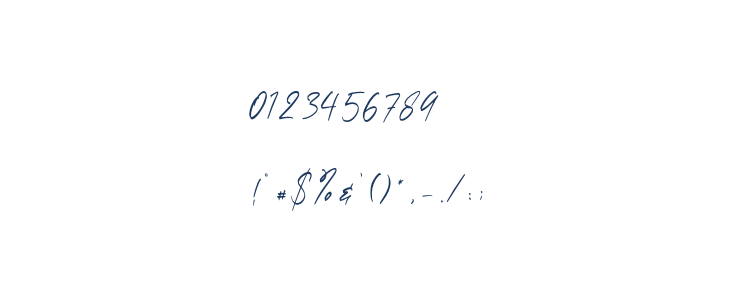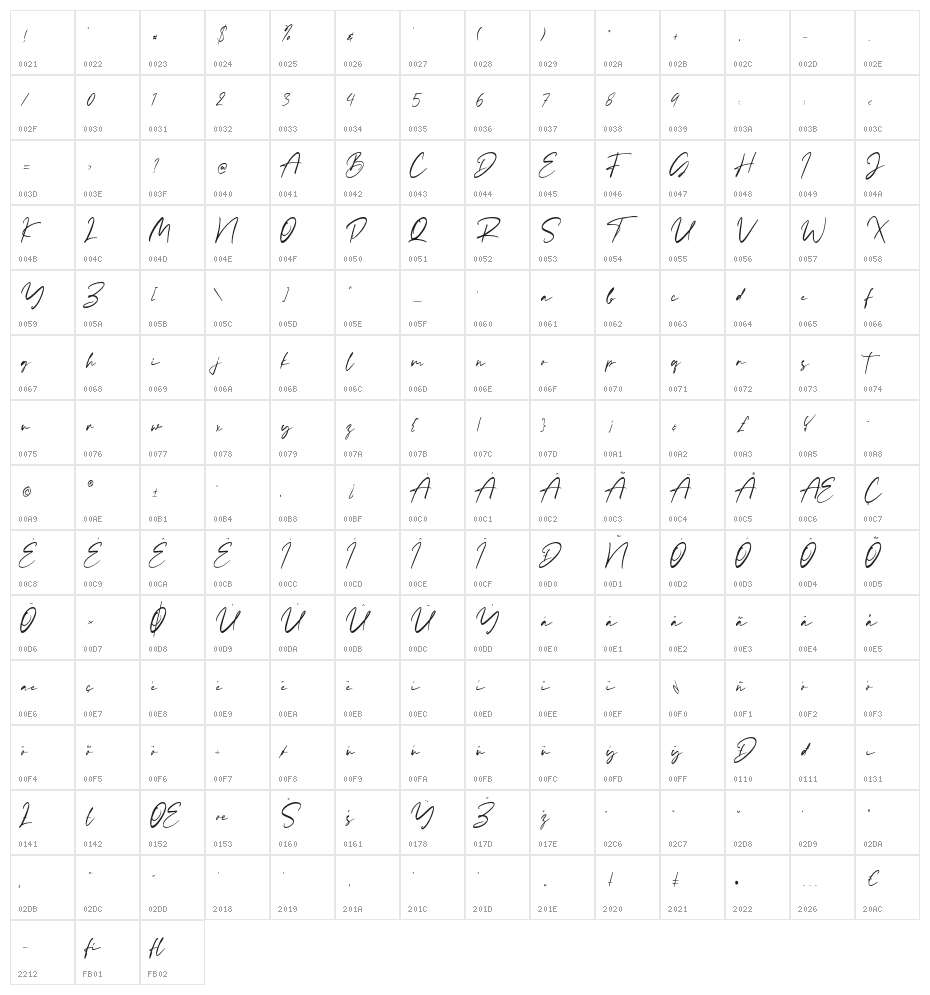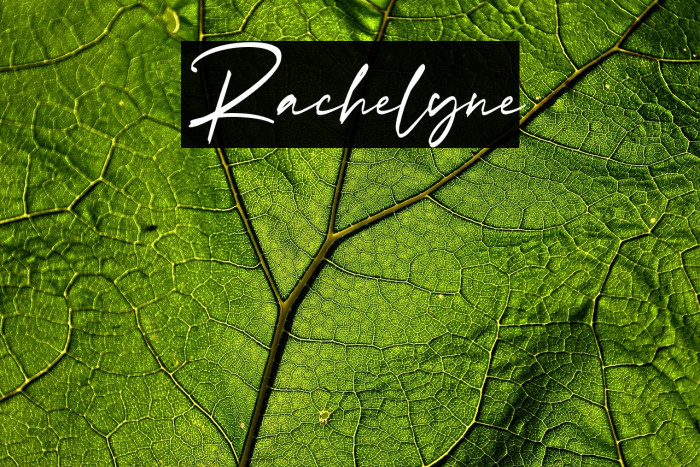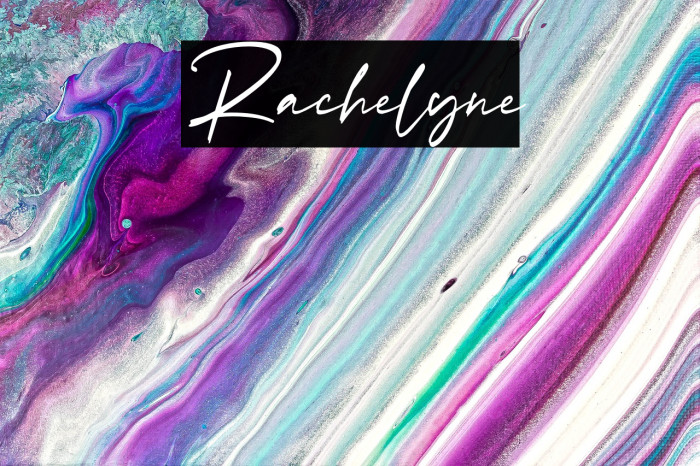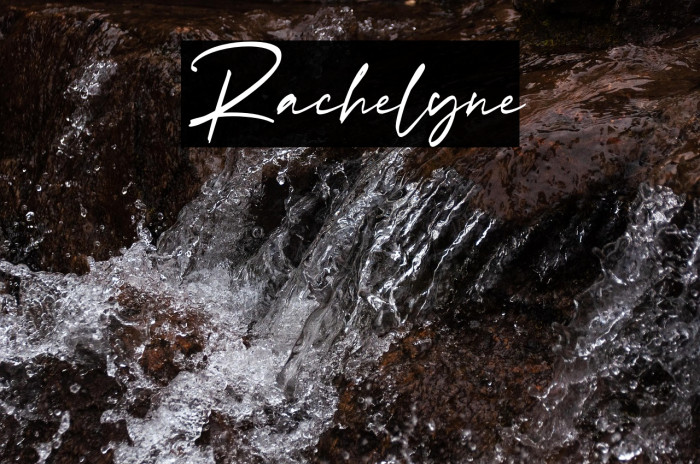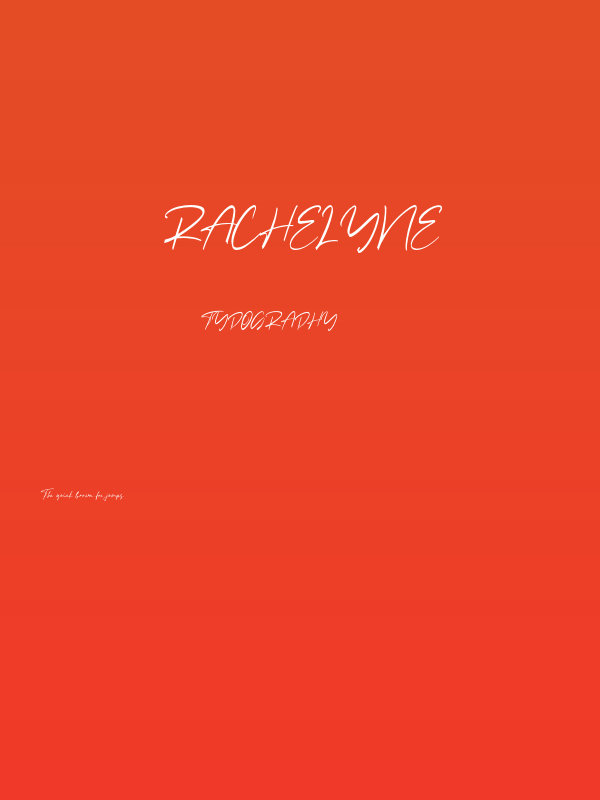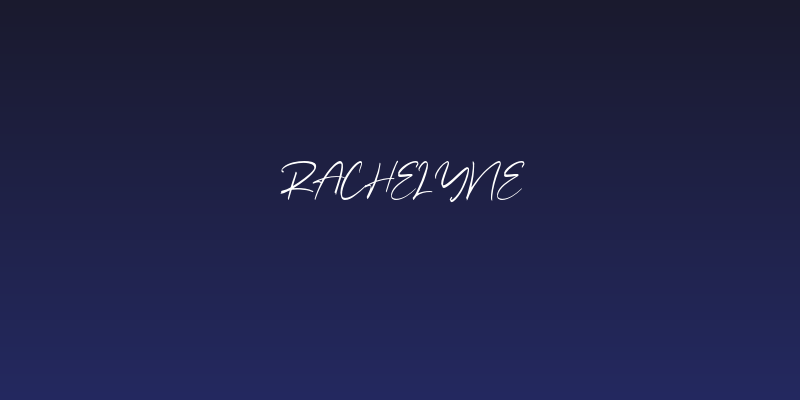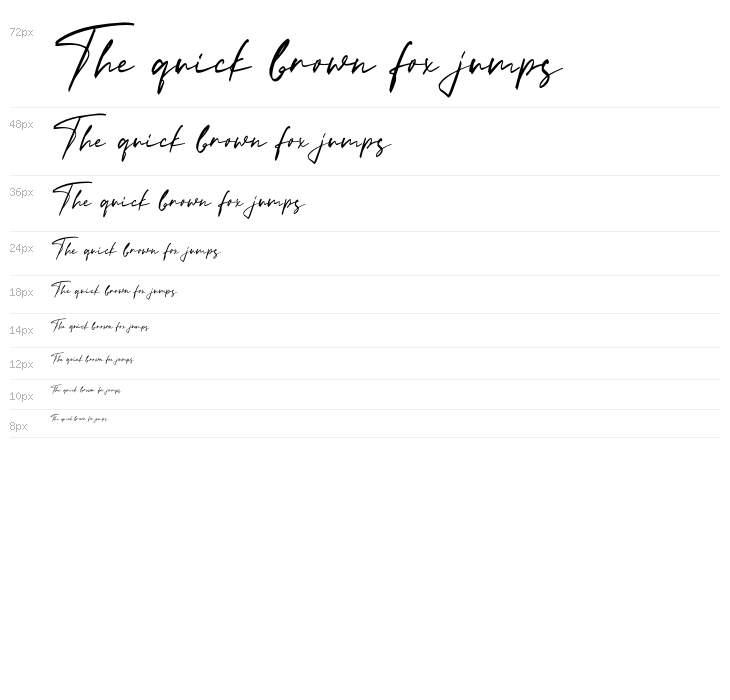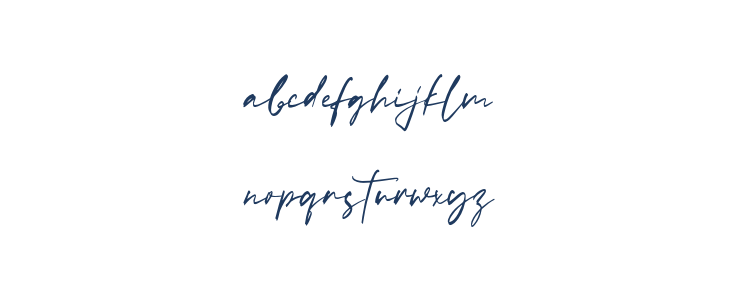
Rachelyne Font
Rachelyne Description
This elegant script font features a flowing, handwritten style with a modern twist. The letters are connected with smooth, sweeping strokes that give it a fluid and dynamic appearance. The uppercase letters are bold and prominent, while the lowercase letters maintain a delicate balance, offering a harmonious blend of thickness and thinness in the strokes. The numerals and special characters are crafted with the same attention to detail, ensuring consistency throughout. This font exudes a sense of sophistication and creativity, making it ideal for projects that require a personal touch.
Use CaseLogos, Invitations, Artistic projects
Proposed ProjectsIdeal for wedding invitations, greeting cards, personal branding, and artistic projects.